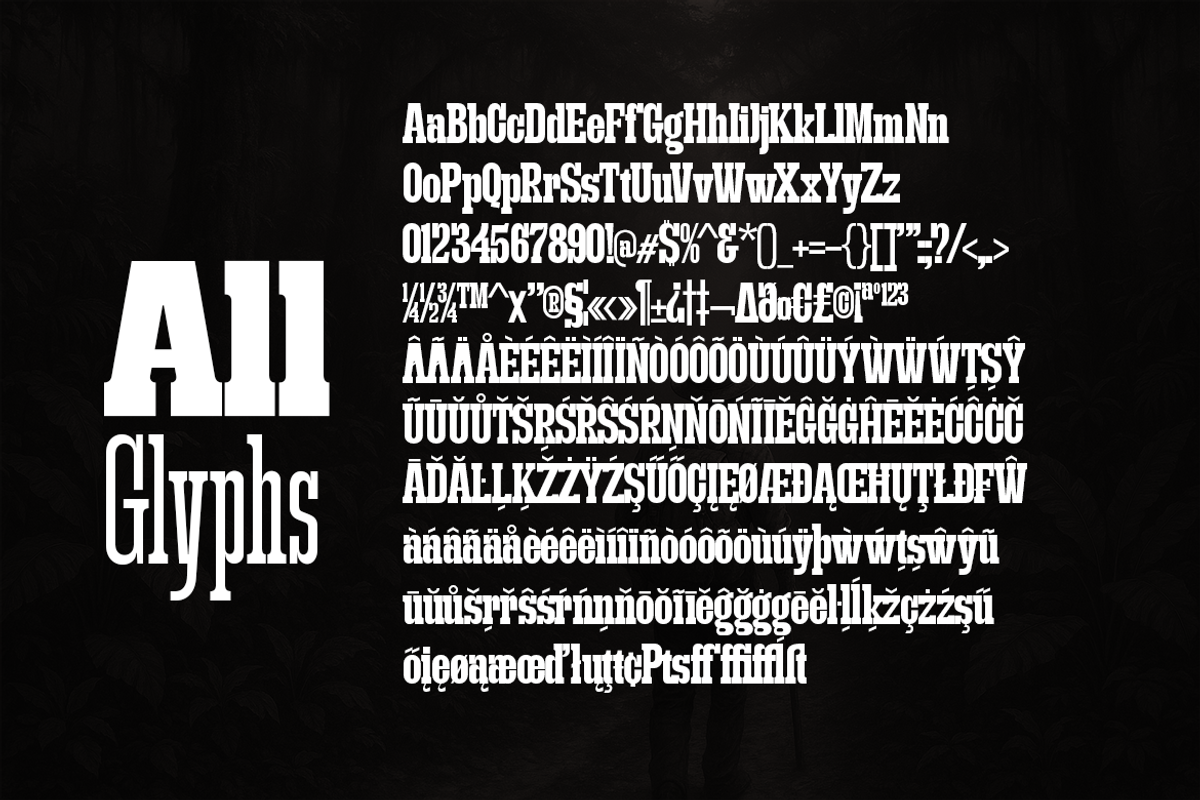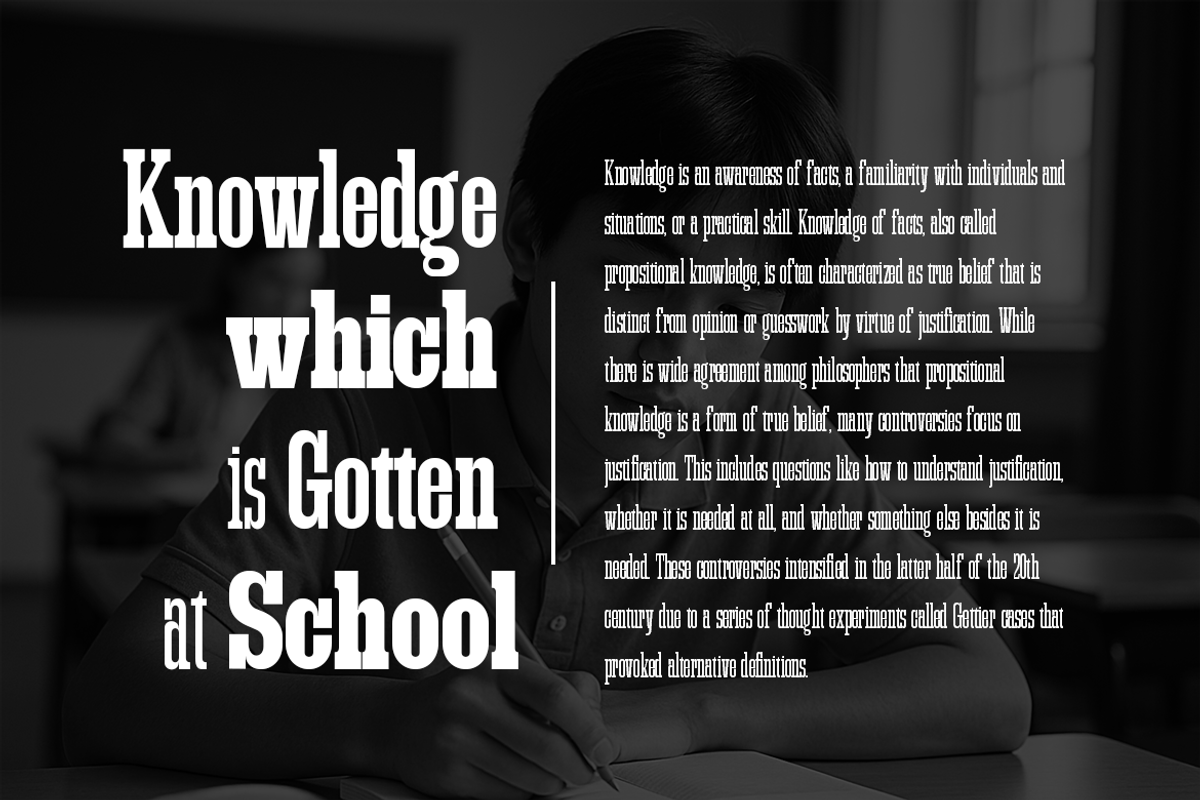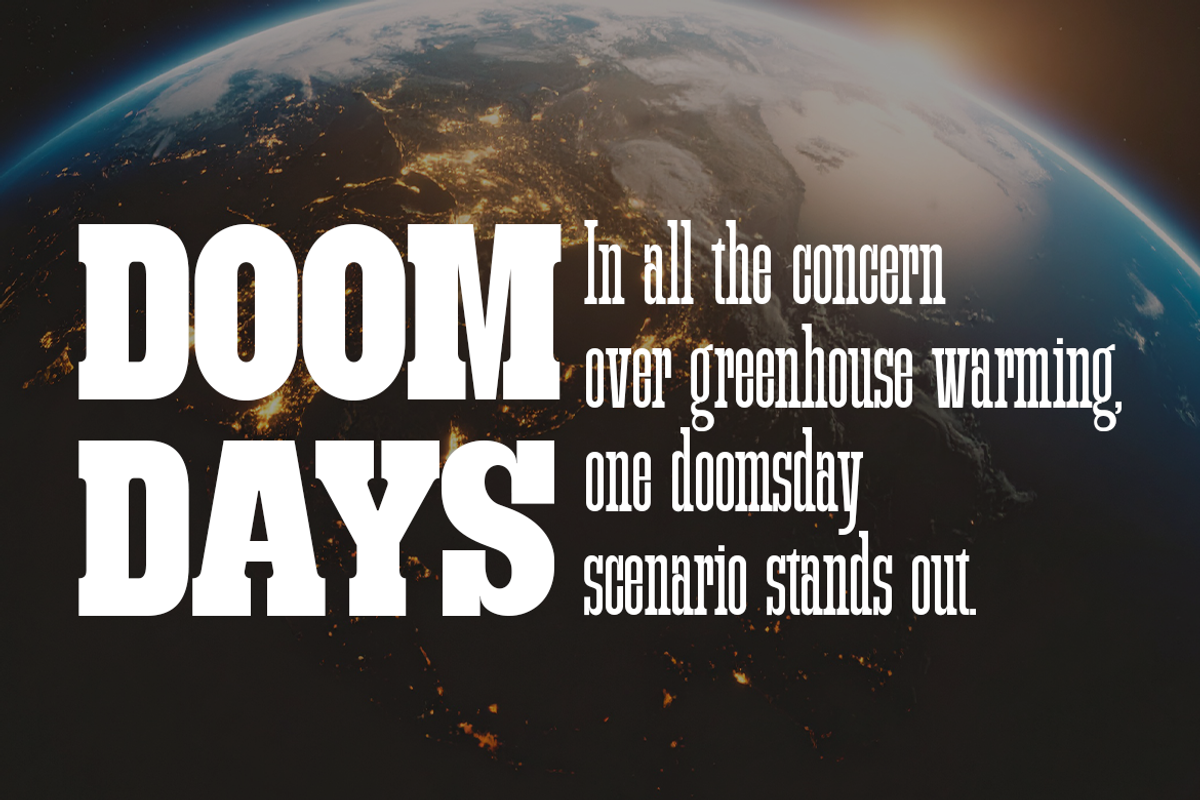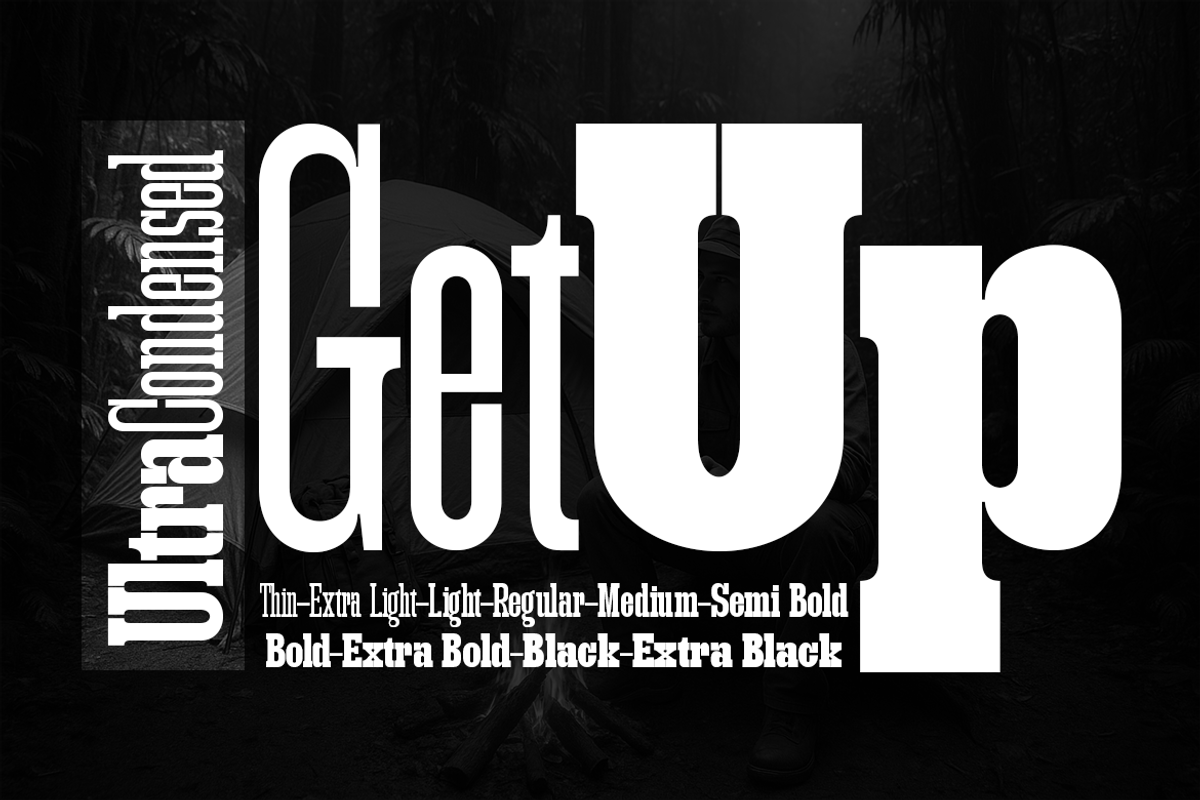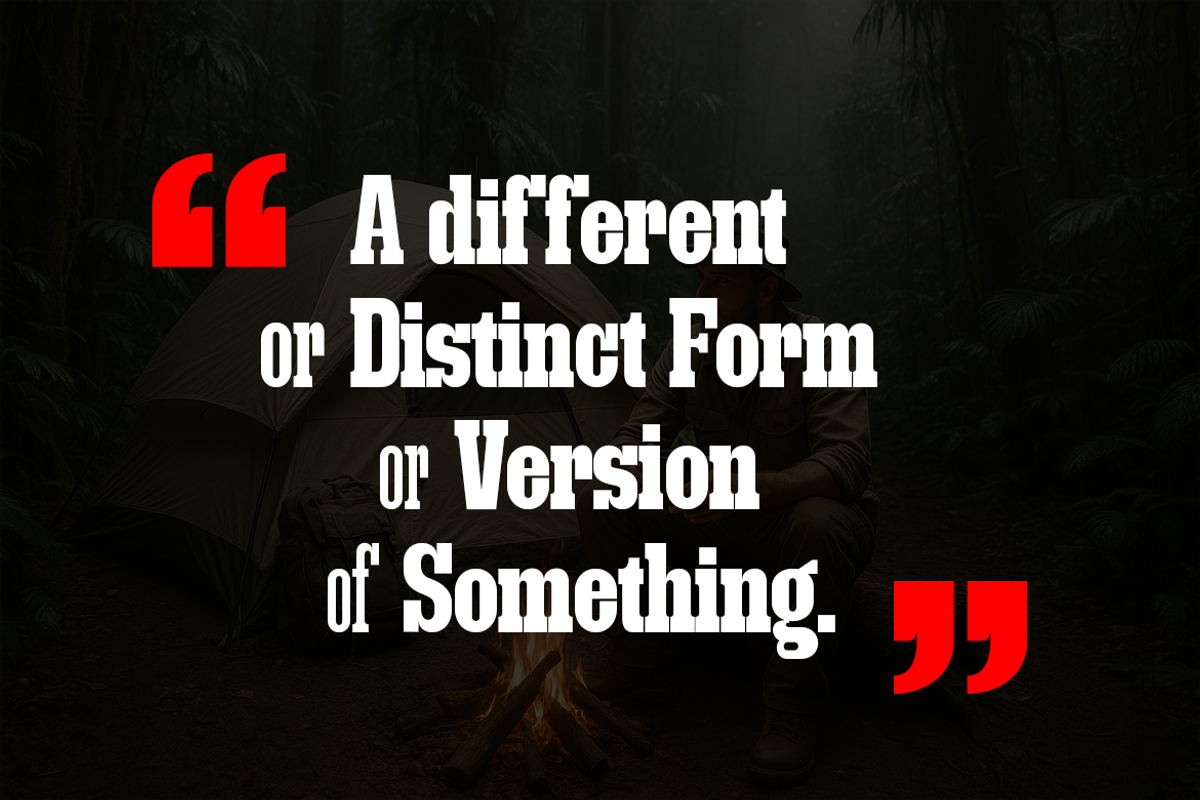
GetUp – Ultra Condensed
GetUp – Ultra Condensed (10 Weights: Thin–Extra Black)
Description: GetUp Ultra Condensed is a powerfully narrow slab serif crafted for designers who need strong visual impact in extremely tight spaces. This category includes 10 complete weights—from Thin, Extra Light, Light, Regular, Medium, Semi Bold, Bold, Extra Bold, Black, to Extra Black—allowing precise control over tone and intensity. Its compressed width, tall rhythm, and sharp slab terminals deliver maximum punch for vertical headlines, album covers, banners, fashion layouts, and expressive modern typography. Each weight maintains clarity and force, making this the perfect choice for bold storytelling where space is limited.